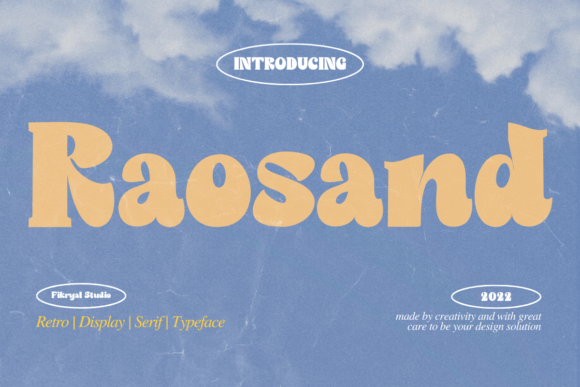
Journey into the world of visual magnetism and creative expression with Raosand Font, a retro serif typeface meticulously designed to uplift your designs and leave a lasting impression.
Born from the union of creativity and meticulous attention to detail, Raosand Font is the ultimate design solution for those seeking to evoke a sense of nostalgia and timeless elegance in their projects. Its carefully crafted curves and distinct letterforms dance harmoniously on the page, creating an alluring visual spectacle that captures the essence of classic typography.
With its undeniable charm and versatility, Raosand Font seamlessly adapts to a myriad of design applications, making it an indispensable tool for designers, creatives, and branding experts alike. Whether you're crafting captivating logos, building strong brand identities, designing eye-catching social media posts, or creating visually stunning advertisements, Raosand Font rises to the occasion, delivering exceptional results that leave a lasting impact.
Imagine your designs adorned with the timeless beauty of Raosand Font, captivating your audience with its refined aesthetics and sophisticated allure. Its elegant serifs and graceful curves add an air of sophistication to logos, branding elements, and titles, making them unforgettable and instantly recognizable. Elevate your social media presence with captivating posts that demand attention and leave a lasting impression on your followers.
Raosand Font's versatility extends beyond digital realms, making it the perfect choice for tangible design projects as well. Its timeless appeal shines through in product packaging, product designs, labels, photography, watermarks, and special event designs. Create packaging that exudes elegance and makes your products stand out on shelves. Design labels that add a touch of sophistication to your products, transforming them into coveted items.
With Raosand Font as your creative companion, you'll embark on a journey of limitless possibilities, where your designs transcend the ordinary and enter the realm of the extraordinary. Experience the transformative power of typography as you witness your projects come alive with a timeless charm that resonates with your audience. Raosand Font is more than just a font; it's an investment in your creative endeavors, a gateway to a world of visual enchantment.